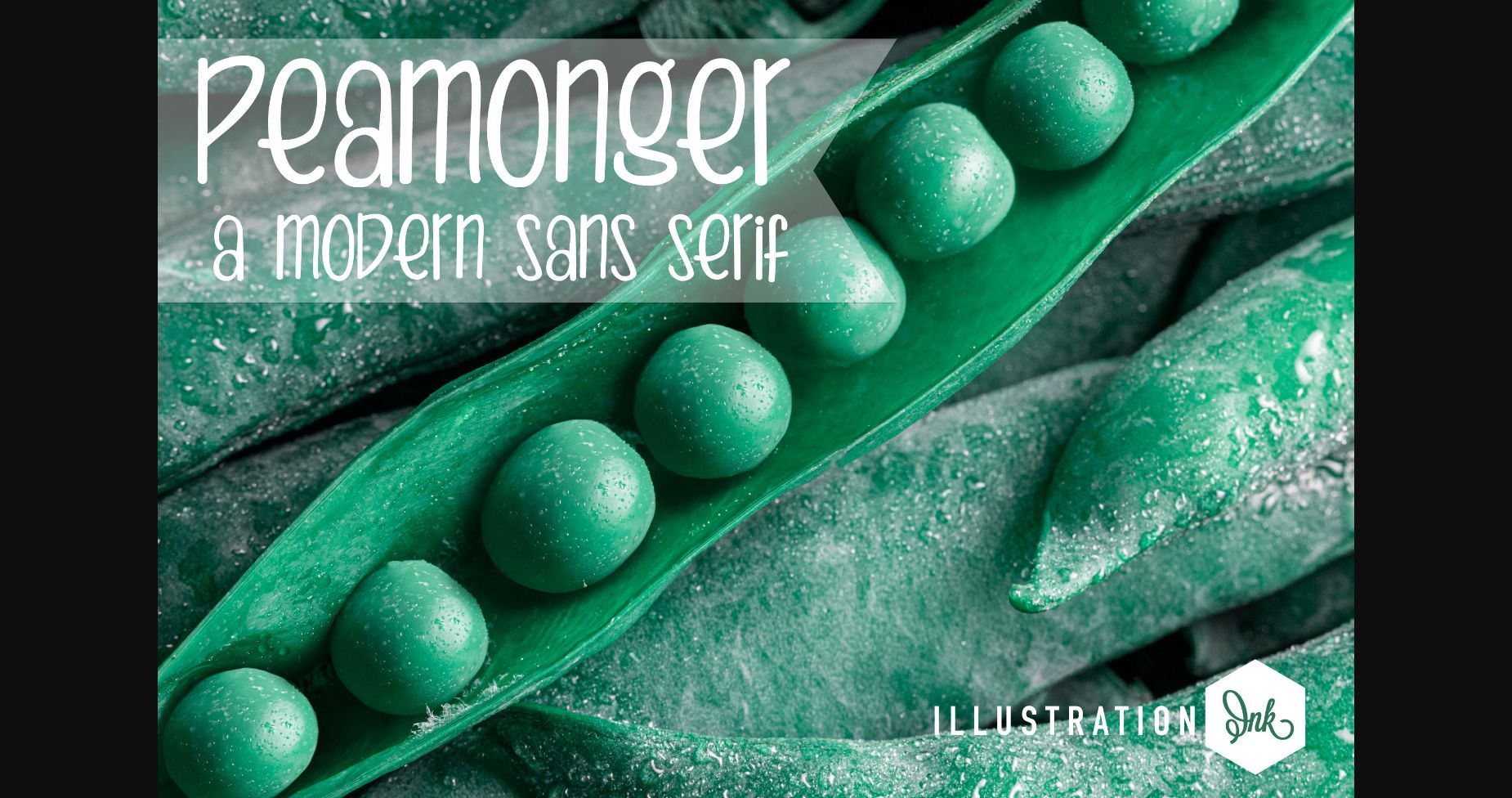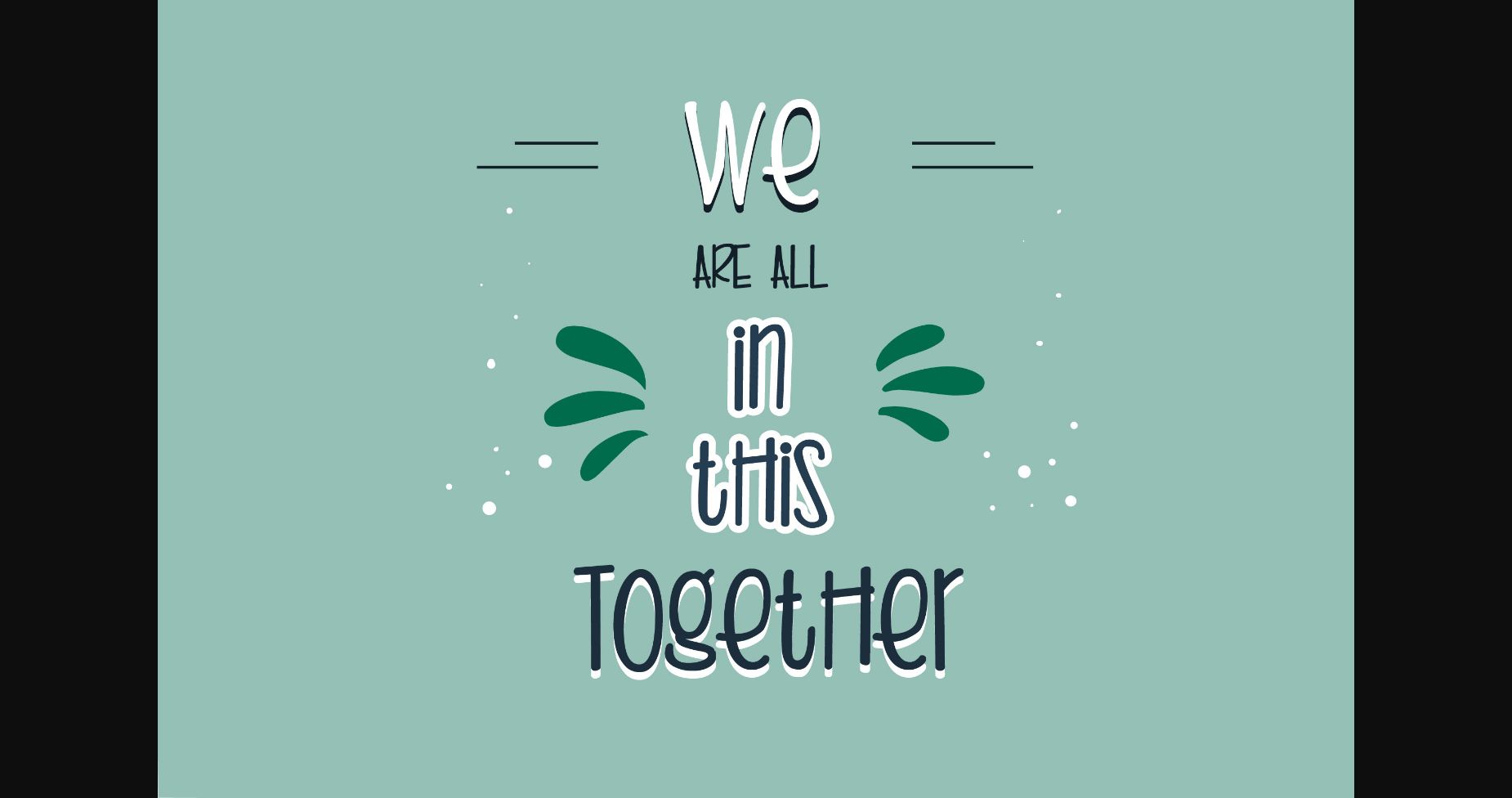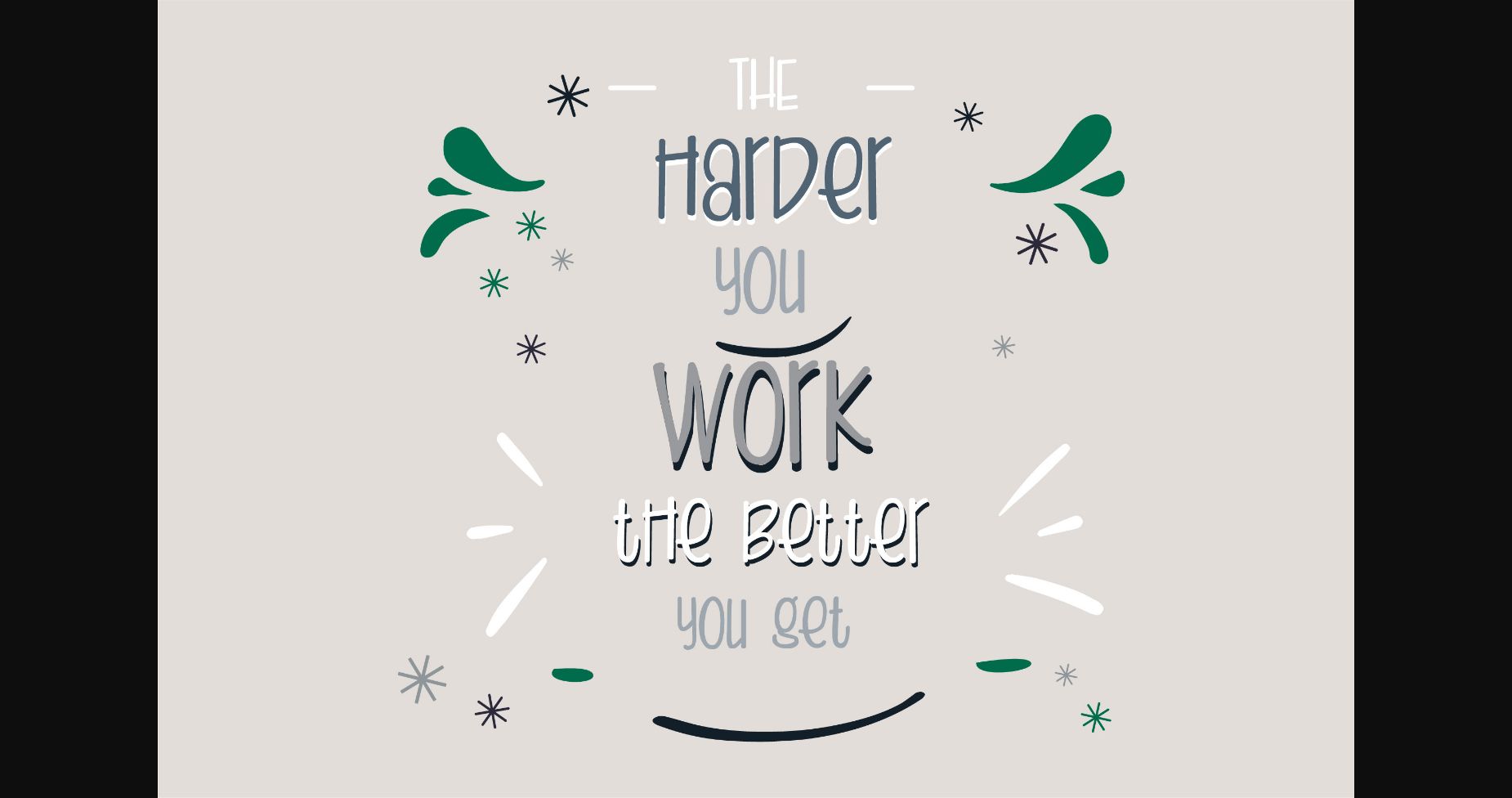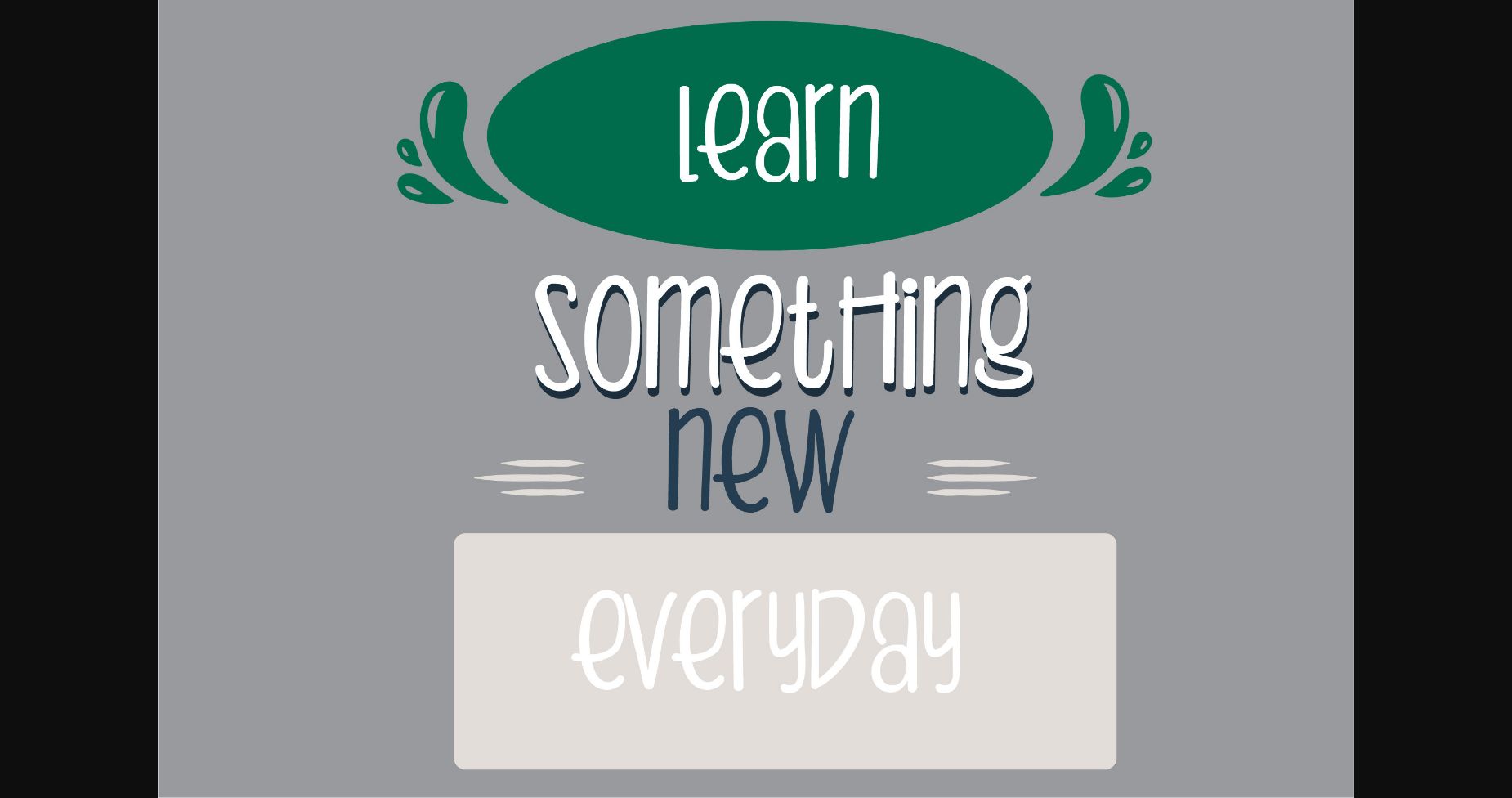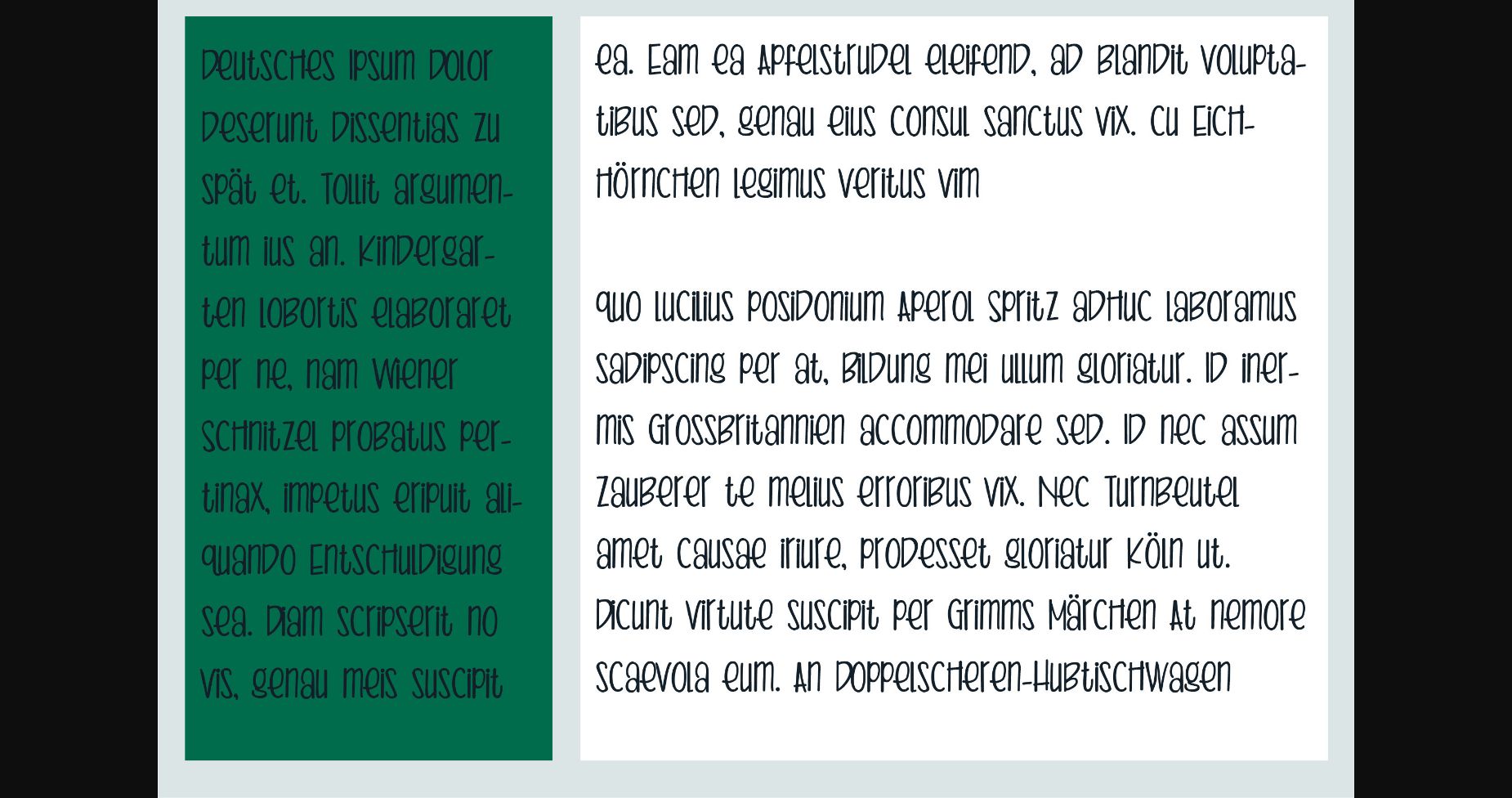
Peamonger Font
About Peamonger Font
Peamonger is a chic, slim and sweet sans serif font. It is perfect for product packaging, branding project, magazine covers, social media, wedding, or just used to express words above the background.